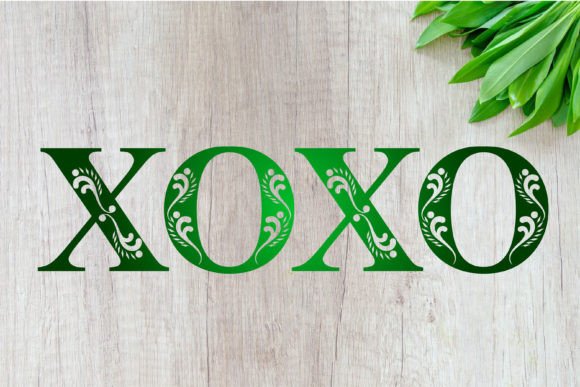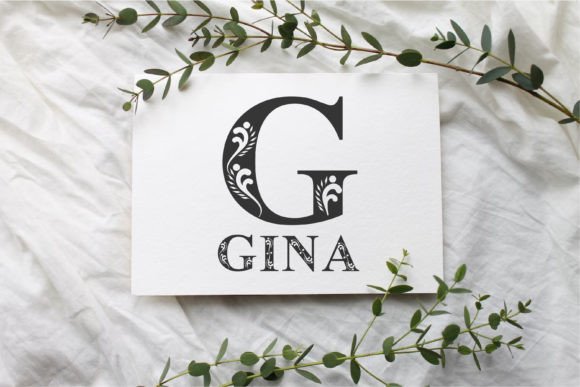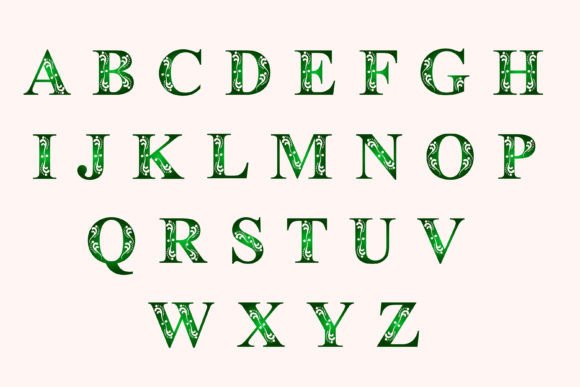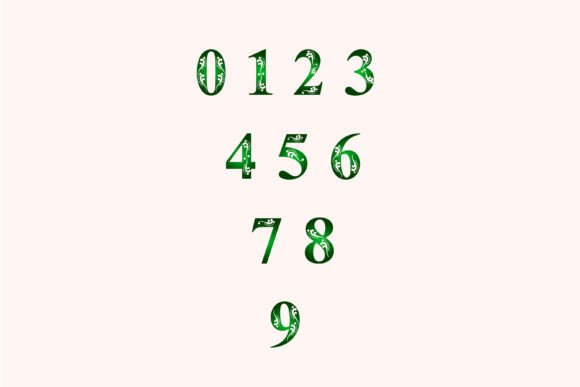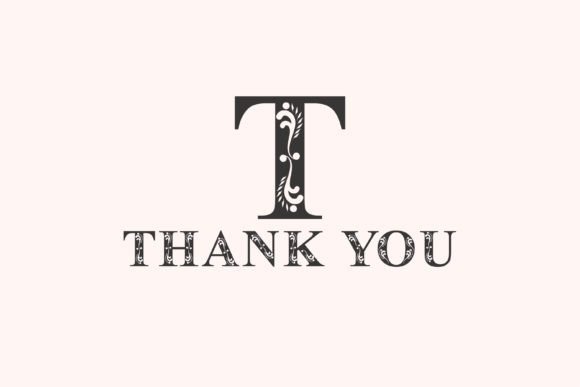
Introducing Decora Font: Elevate Your Designs with Elegance
Are you a designer, crafty enthusiast, or simply someone who appreciates beautiful typography? Look no further than the stunning Decora font. This incredibly chic and elegant decorative font is sure to become a prized addition to your font library, capable of elevating any creation to new heights.
The Versatility of Decora Font
One of the standout features of Decora is its versatility. Regardless of the topic or theme, this font seamlessly adapts to bring a touch of sophistication and refinement. Whether you’re working on a luxury brand logo, a wedding invitation, or a DIY craft project, Decora font is the perfect choice to add a dash of elegance.
What Makes Decora Font So Special?
Decora font boasts a range of characteristics that make it an exceptional addition to any design project. Here are just a few reasons why Decora stands out:
- Unique Letterforms: Decora’s distinctive letterforms are carefully crafted to exude elegance and poise. Each letter is a masterpiece, showcasing intricate details and beautiful curves.
- Highly Legible: Despite its ornate nature, Decora font remains highly legible, making it perfect for use in a variety of applications, from headlines to body text.
- Flexible and Adaptable: Decora font can be used in a range of sizes and styles, from large display headings to smaller body text, ensuring that it always looks stunning.
Using Decora Font in Your Designs
Decora font can be used in a multitude of design projects, including:
- Logos and Branding: Create a lasting impression with Decora font, perfect for luxury brands, high-end products, or services that demand a touch of sophistication.
- Wedding and Event Stationery: Add a touch of romance and whimsy to your wedding invitations, save-the-dates, and other event stationery with Decora font.
- DIY Crafts: Elevate your craft projects, such as handmade cards, scrapbooking, and journaling, with the beautiful and elegant Decora font.
- Digital Designs: Use Decora font in your digital creations, including social media graphics, blog posts, and website headers, to add a professional and polished touch.
Tips for Getting the Most Out of Decora Font
To maximize the impact of Decora font in your designs, consider the following tips:
- Pair with Simpler Fonts: Combine Decora font with simpler, sans-serif fonts to create visual interest and hierarchy in your designs.
- Experiment with Colors: Decora font looks stunning in a range of colors, from metallics to pastels. Experiment with different hues to find the perfect combination for your design.
- Play with Size and Scale: Don’t be afraid to experiment with different sizes and scales to create visual interest and add depth to your designs.